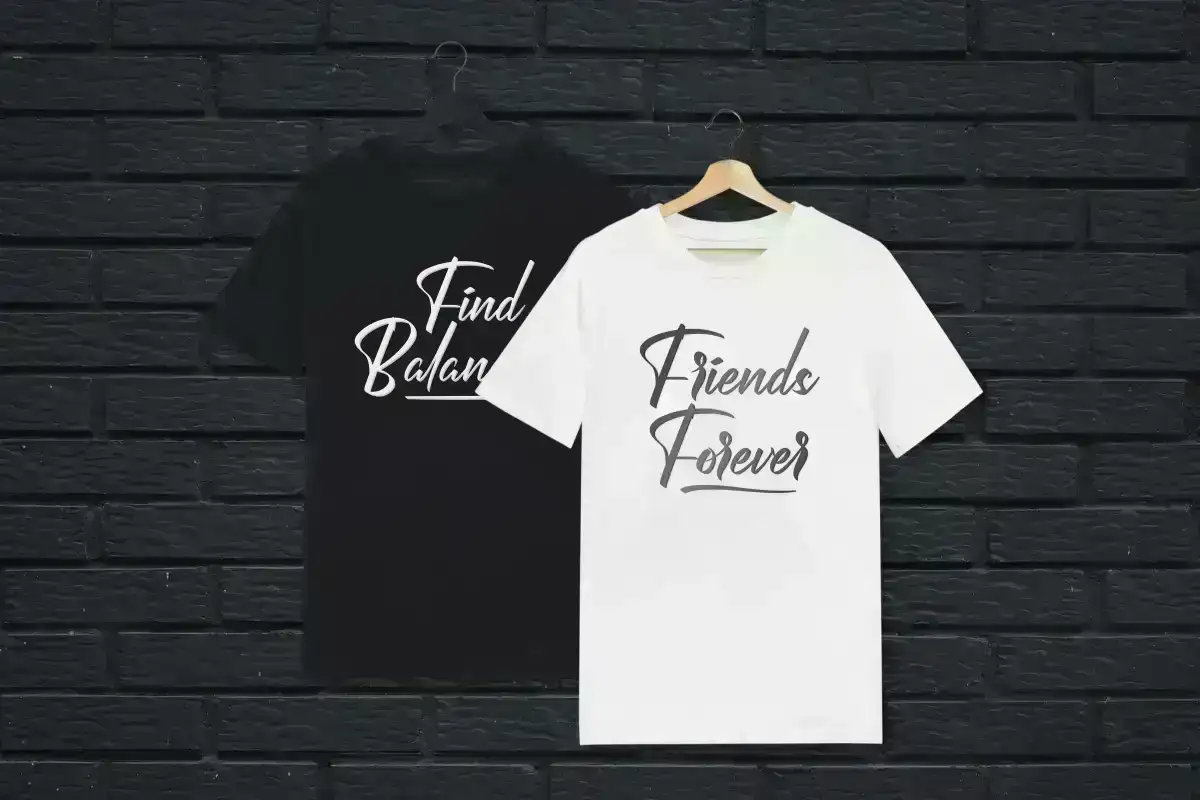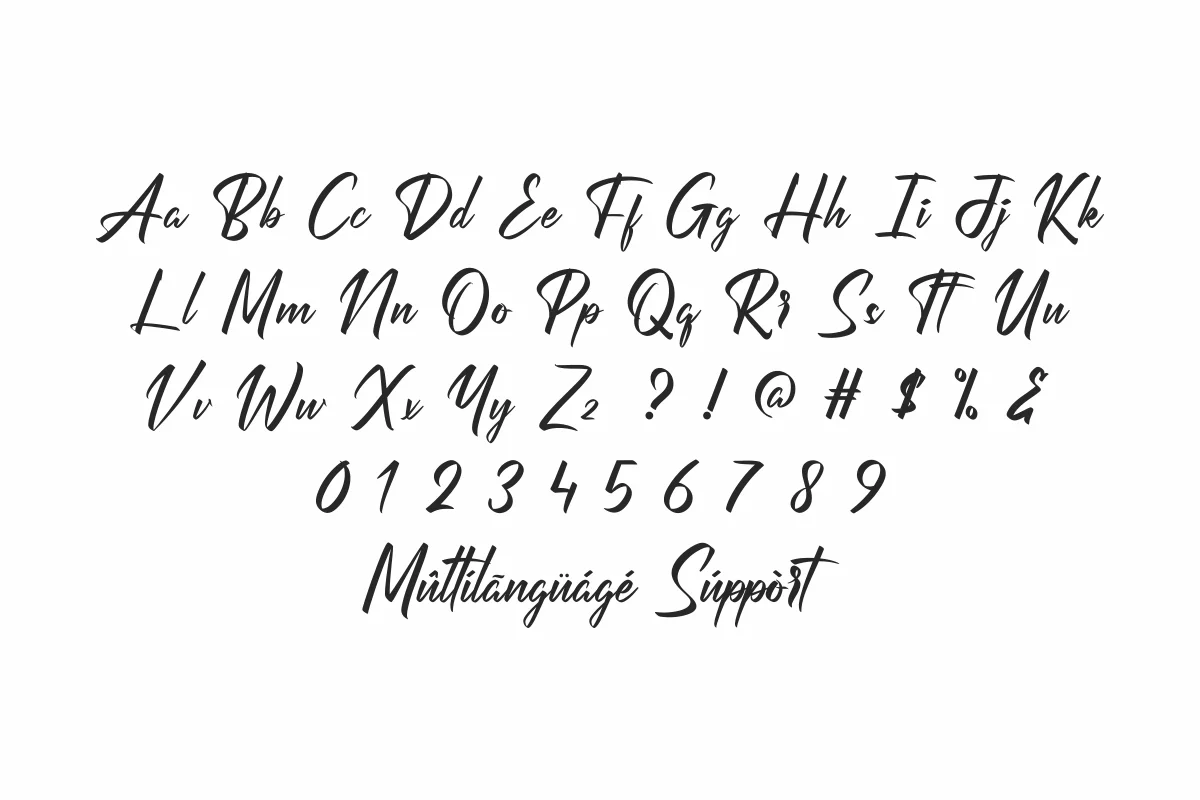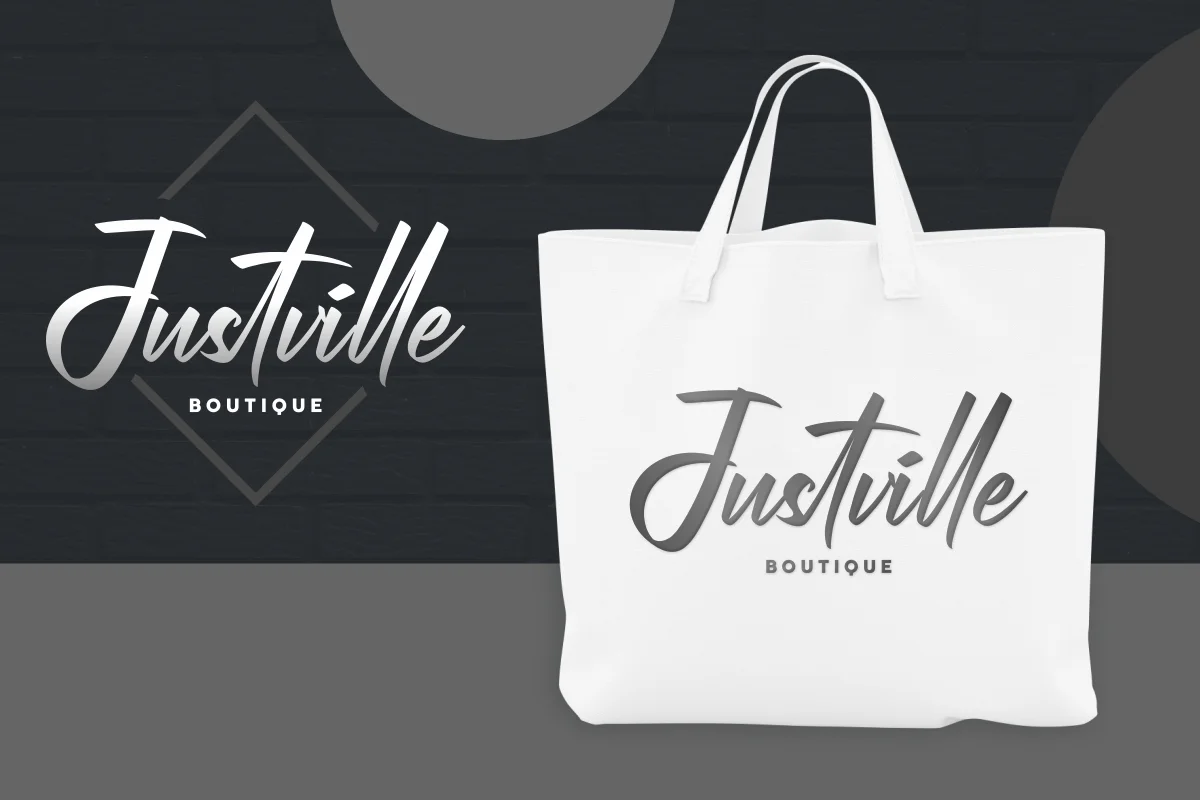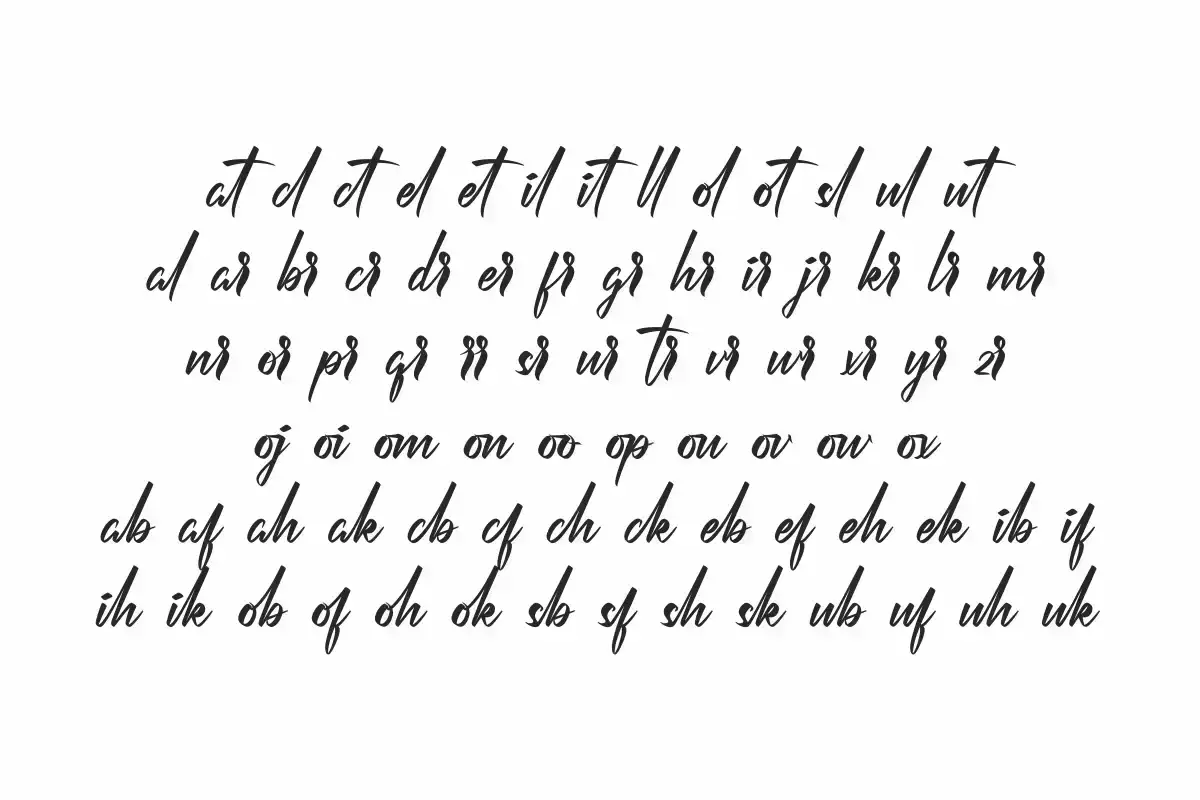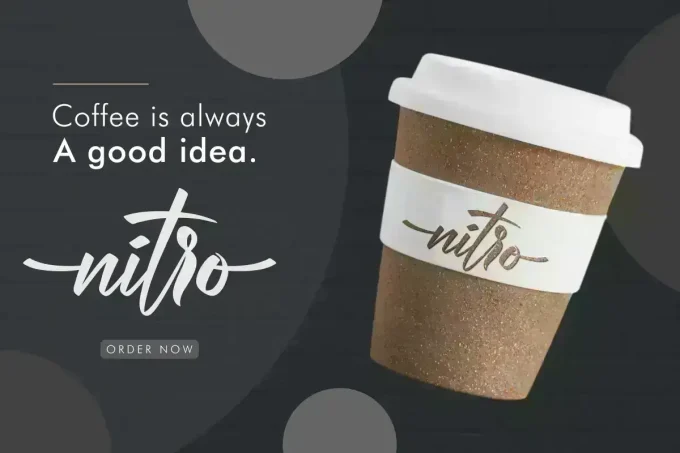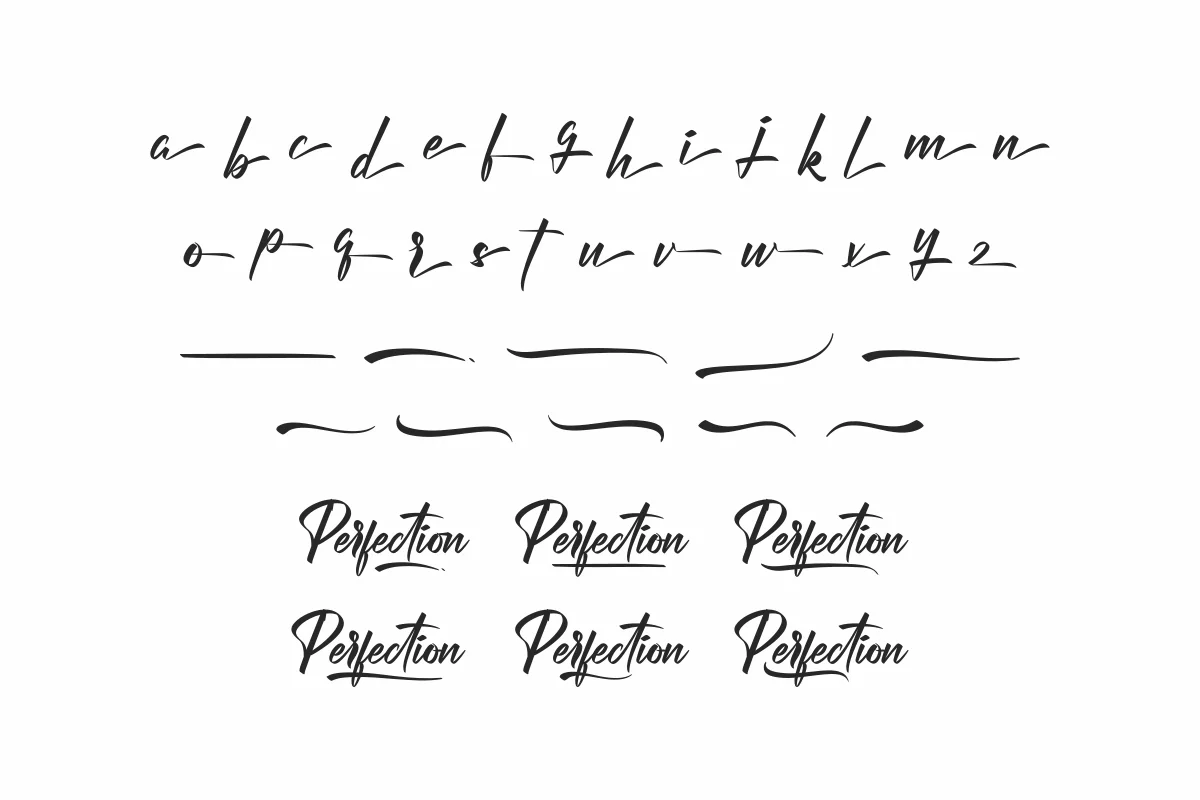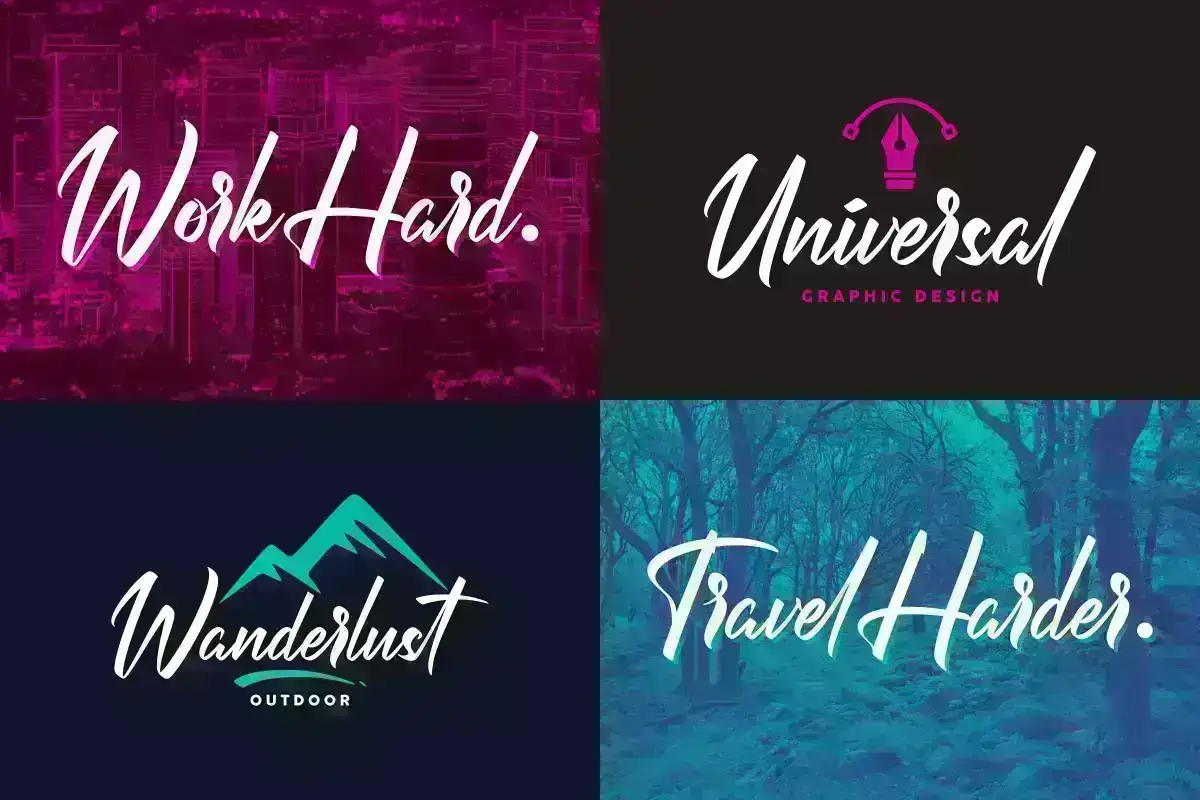
Perfection Font is a new calligraphy font by NihStudio. Perfection Font is a beautiful calligraphy font, Made for special projects : logo, signature etc
Perfection is a beautiful calligraphy script font. Made in Indonesia 2020 by Our Font Designer : Widi and Sarah. On the package you will get :
Perfection font will be awesome for many projects (some require extended license) including : branding, logo, stationery, business card, signage, flyer, brochure etc. The theme style of the font is elegant, luxury, glamour, gold, vintage, stylish, sophisticated and classic brush style. The font will be match for this typeface: wedding, events, real estate, architect, law firm, florist, gardening, makeup artist, travel, hotel, musician etc